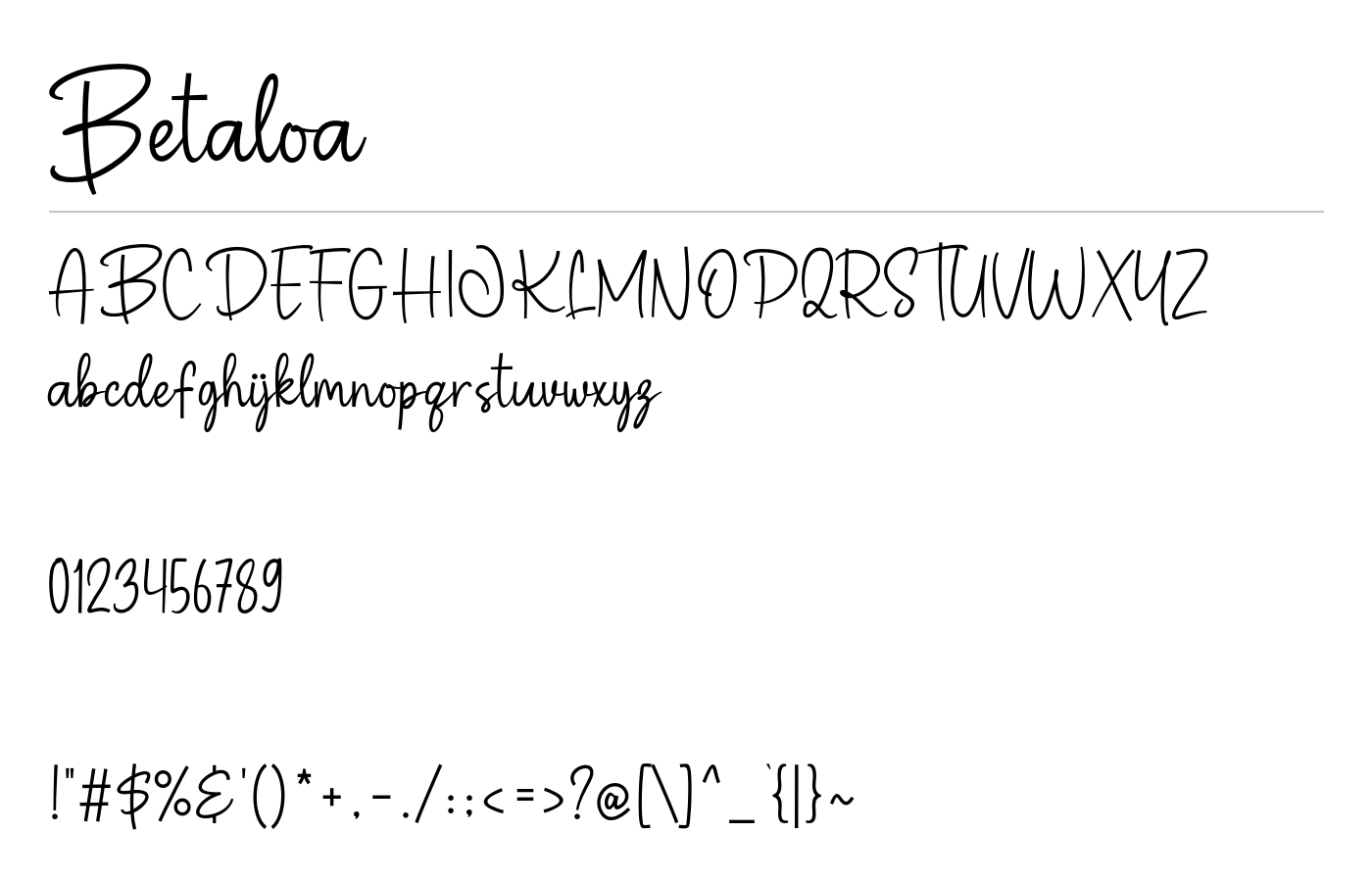
Betaloa is a playful, casual script font with thin, smooth strokes and a hand-drawn feel. Its tall, narrow letterforms and lively curves give it a friendly, approachable character, making it ideal for creative branding, invitations, and informal headlines where a personal touch is desired. This font works great for adding warmth and personality while maintaining clarity and elegance.
Betaloa Font
About Betaloa Font
| Designer | Suzuran |